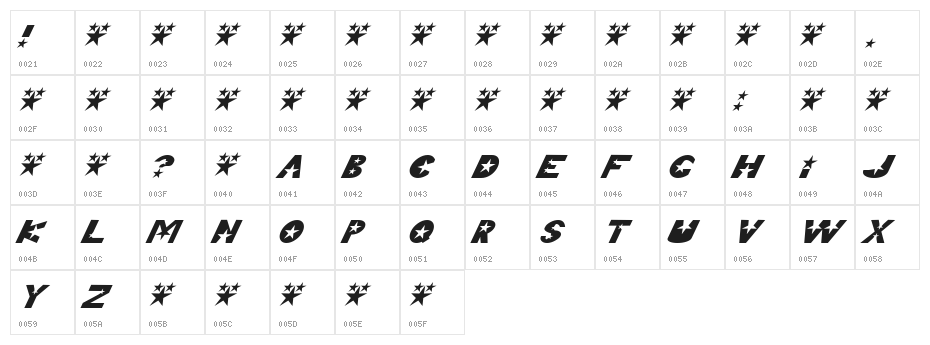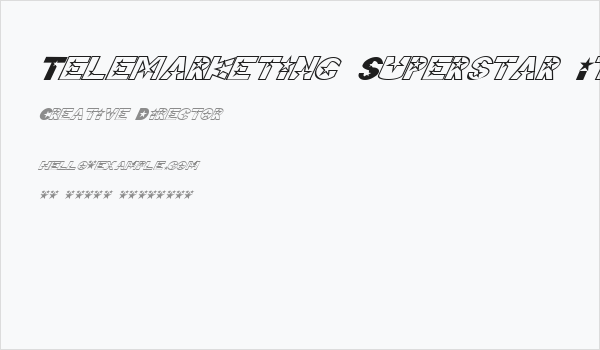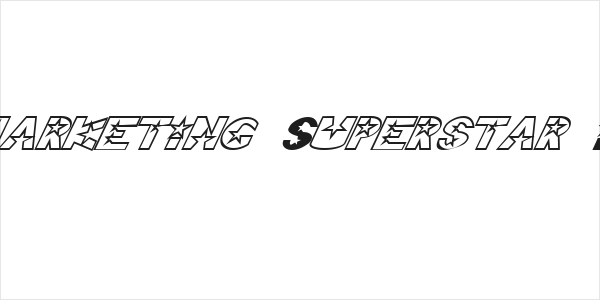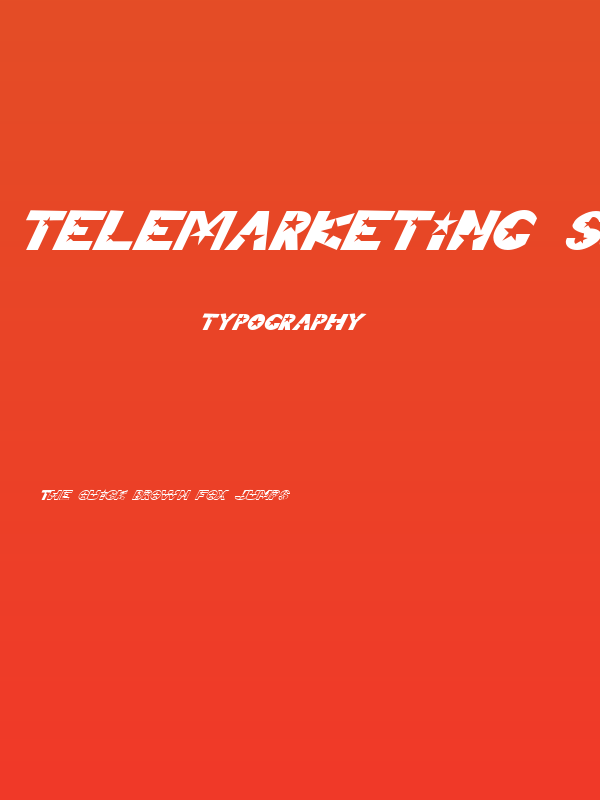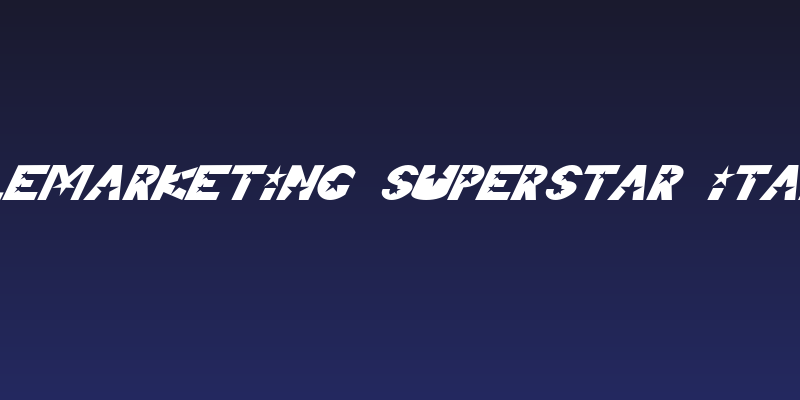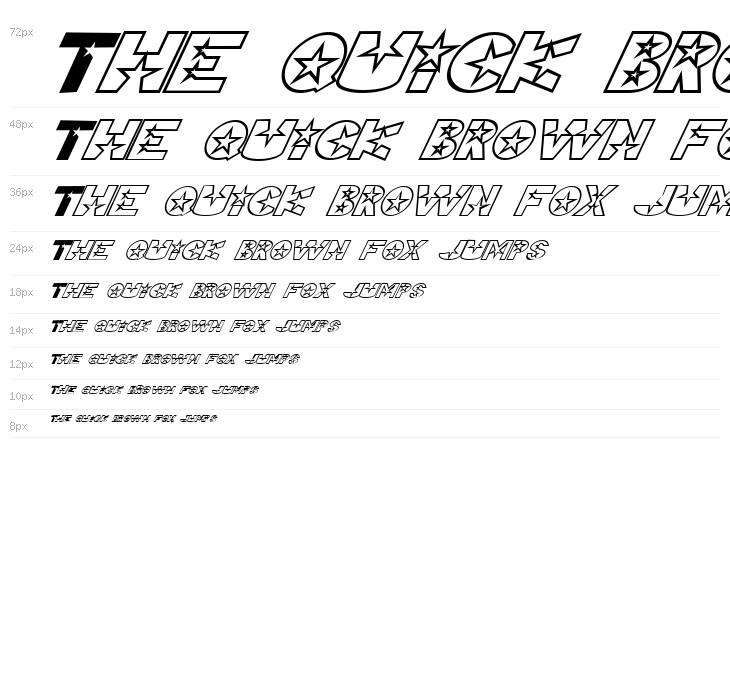
Telemarketing Superstar Italic Font
Telemarketing Superstar Italic Description
This font features a bold and dynamic style with a star motif integrated into each character, giving it a unique and eye-catching appearance. The letters are italicized, adding a sense of movement and flair. The design is highly decorative, making it ideal for projects that require a standout visual element. The uppercase letters are prominent, with sharp angles and a strong presence. The star elements are consistently placed within each character, providing a cohesive and thematic look across the entire alphabet. This font is perfect for creative and bold design projects that aim to capture attention and convey a sense of excitement or celebration.
| Proposed Projects | Ideal for event posters, party invitations, branding for entertainment industries, and any project that requires a festive or standout design. |